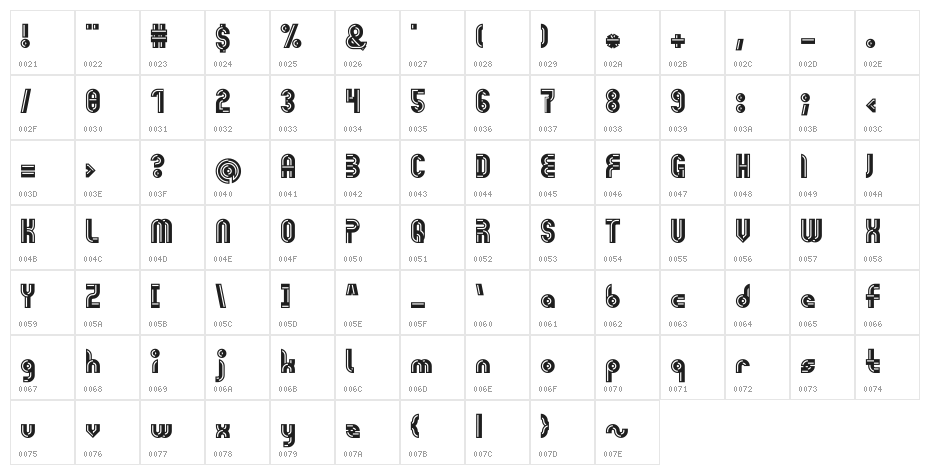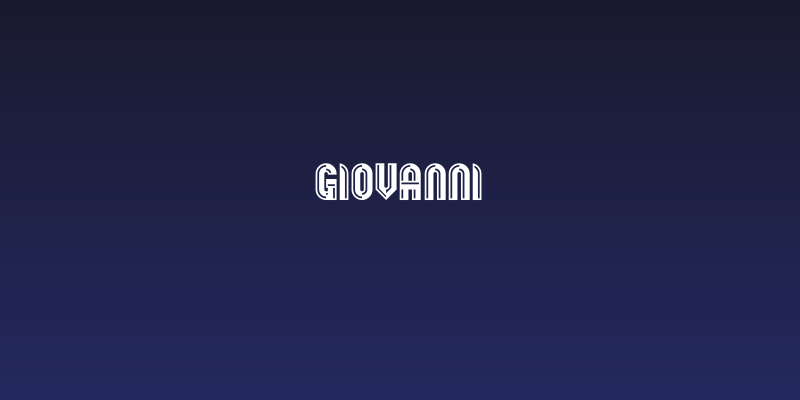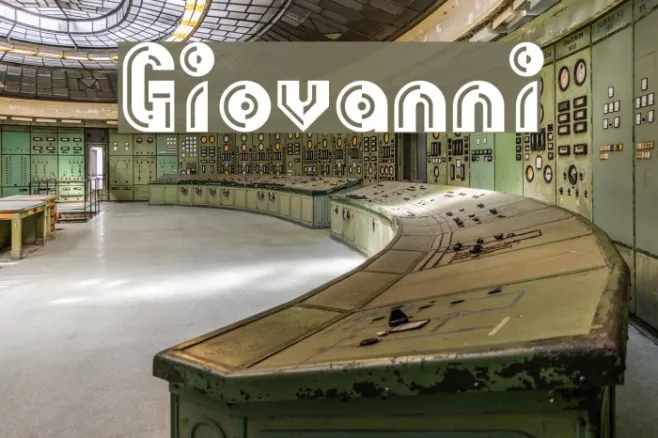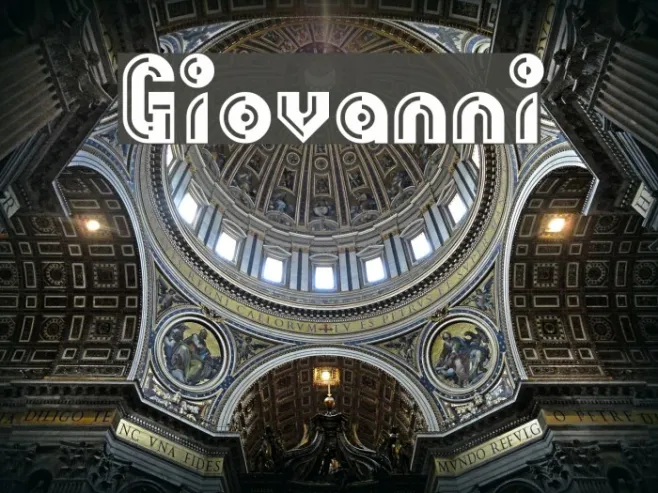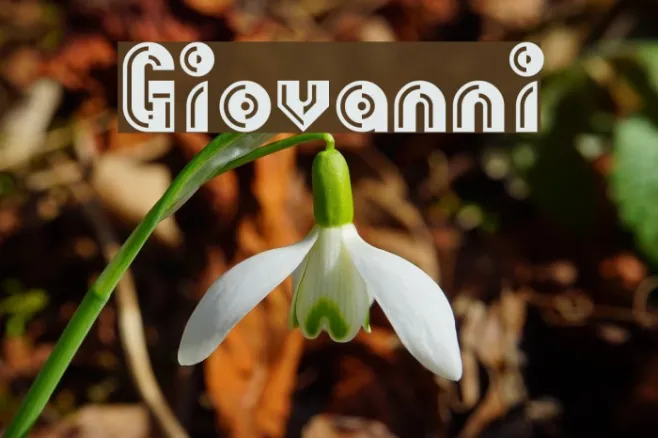
Giovanni Font
Giovanni Description
This font features a bold and striking design with a unique blend of geometric and decorative elements. Each character is crafted with a double-layered effect, creating a sense of depth and dimension. The uppercase letters are particularly eye-catching, with their bold lines and intricate patterns. The lowercase letters maintain the same stylistic approach, ensuring consistency throughout the typeface. Numbers and special characters are equally well-designed, making this font versatile for various applications. The overall appearance is modern and artistic, suitable for projects that require a standout display font.
| Proposed Projects | Ideal for posters, logos, branding, and any design that needs a bold, artistic touch. |